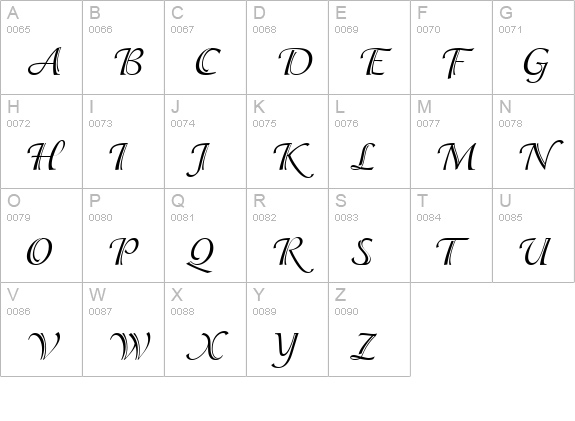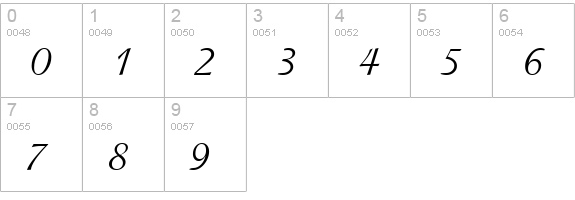
Isadora ICG Font Details
Isadora ICG is a captivating and elegant font that exudes a sense of sophistication and grace. Its delicate curves and flowing lines make it an ideal choice for any project that requires a touch of beauty and refinement. The versatility of Isadora ICG allows it to be used in various design applications, such as logos, branding, invitations, and more. One of the most remarkable aspects of Isadora ICG is that it is available for free. Yes, you read that right - this extraordinary font can be downloaded at no cost! Thanks to its creators' generosity, Isadora ICG can be freely obtained from FontsMarket.com. This means that anyone can access this stunning typeface and use it to elevate their designs without any financial burden. Isadora ICG's free availability does not compromise its quality or functionality. It is a professionally crafted font that maintains its integrity even when scaled or used in different contexts. Its attention to detail and careful design ensure that each character is visually pleasing and harmoniously balanced. Whether you're a professional designer or an aspiring creative, Isadora ICG offers an opportunity to enhance your projects with a touch of elegance and sophistication. With its free availability, there is no reason not to explore the beauty and versatility of Isadora ICG. So go ahead, visit FontsMarket.com, and download this remarkable font today. Let Isadora ICG inspire your creativity and elevate your designs to new heights.